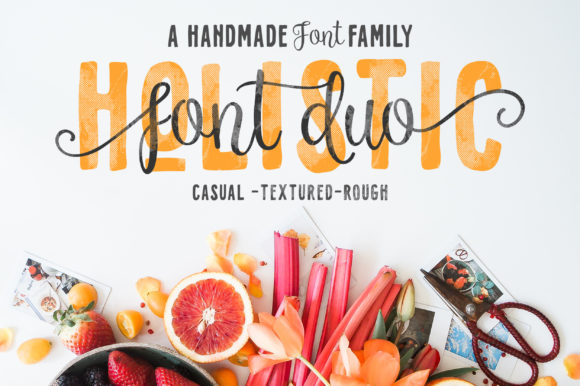
Introducing Holistic Font, the enchanting script font that will transport you to a realm of pure beauty and natural elegance. Created by letrasupply, this font duo is a harmonious blend of two stunning fonts, designed to captivate and inspire.
With Holistic Font, your words will come alive on the page, effortlessly conveying emotions and evoking a sense of tranquility. Its flowing script style exudes a graceful charm and adds a touch of sophistication to any project. Whether you're designing wedding invitations, branding materials, or social media graphics, Holistic Font will elevate your creations to new heights.
Indulge your senses in the seamless connection between the two fonts that make up Holistic Font. The first font, with its delicate strokes and gentle curves, whispers serenity and calmness. It effortlessly conveys a sense of purity, making it perfect for projects that aim to bring out the inner beauty of your message.
Complementing this font is its partner in perfection, the second font of the duo. Bold and confident, it adds an element of dynamism and flair to your designs. With its striking presence, this font effortlessly commands attention, ensuring that your words are not only heard but also felt.
But the magic of Holistic Font doesn't stop there. With its extensive character set, this font duo allows you to explore endless creative possibilities. Express your unique style by mixing and matching the glyphs, creating captivating letter combinations that will leave a lasting impression on your audience.
With its keyword-rich design, Holistic Font is optimized to attract users looking for that perfect blend of style and substance. Craft compelling headlines and attention-grabbing titles that will draw in your audience and keep them engaged. Let the words flow effortlessly, guided by the organic beauty of Holistic Font.
Embrace the power of emotions and connect with your audience on a deeper level. Holistic Font allows you to infuse your designs with feelings of serenity, joy, and authenticity. Whether you're aiming to create a sense of calm or evoke a burst of energy, this font duo will help you achieve your desired emotional impact.
In a world where first impressions matter, Holistic Font ensures that your designs make a lasting impact. Stand out from the crowd with a font that is as unique as you are. Let Holistic Font be the secret ingredient that takes your creations from ordinary to extraordinary.